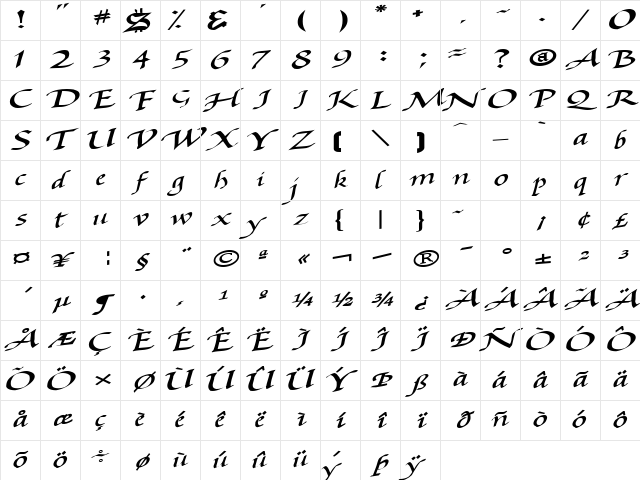
BaggageMasterText79 Bold Free Font
BaggageMasterText79 Bold
BaggageMasterText79 Family
Complete BaggageMasterText79 Bold glyph index. Displaying only characters natively supported by BaggageMasterText79 Bold font.
Design Context for BaggageMasterText79
BaggageMasterText79 is a composed and adaptable typeface that performs quietly and consistently across a wide range of design contexts. Its bold stroke weight gives it real presence on the page.